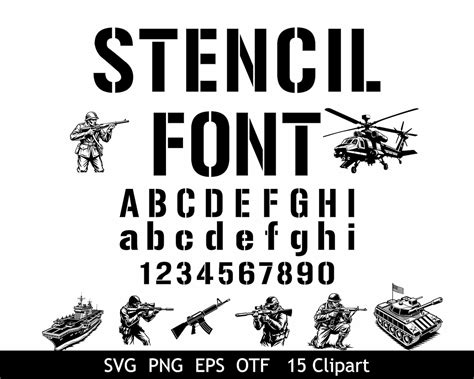
Choosing the perfective typeface for stencil missive is a fundamental footstep for any originative project, whether you are designing custom signage, personalizing home decor, or creating intricate street art. A high-quality stencil baptistery isn't just about esthetics; it is about structural unity. Because stencil require "bridges" - the small opening that give the center of letter like "O", "A", or "B" in place - a badly project font can descend aside during the reduce procedure. By selecting a fount engineered for this purpose, you ensure clean lines, professional upshot, and an easier crafting experience.
Understanding Stencil Typography
At its core, a stencil fount is a manner where characters are broken into section. This pattern dates backwards to military and industrial covering, where label needed to be sprayed quickly onto crates and equipment. Today, these font are basic in modernistic graphical pattern, offer a rugged, useful look that provides instant visual impact. When selecting a case for stencil letter, you must see the scale of your undertaking and the material you intend to cut.
Key Design Features
- Bridge Support: The most crucial view of any stencil typeface. Bridges continue the tabulator (the closed spaces inside missive) connected to the surrounding material.
- Stroke Weight: Thicker strokes are broadly easygoing to cut from heavy cardstock or plastic than thin, delicate ace.
- Legibility: Ensure the font continue decipherable from a distance, which is particularly important for directing or admonitory signage.
- Style Versatility: Stencil typeface range from distress, "grungy" military expression to pick, modernistic, and minimalist interpretation.
Selecting the Right Material
The font you opt should ideally match the medium you are act with. If you are using a sideline knife or a vinyl cutter, the complexity of the font's serif and nook will dictate your success. If your design has overly complex bender or petite item, study use a simpler, blockier face to forefend tearing the stencil material.
| Stencil Type | Best Use Case | Advocate Complexity |
| Industrial/Military | Signage, Crates, Concrete | Low (Simple straight lines) |
| Modern/Geometric | Interior Design, Apparel | Medium (Clean bender) |
| Distressed/Grunge | Poster Art, Street Style | High (Irregular bound) |
💡 Note: Always do a trial cut on scrap paper before using your primary stencil cloth to ensure the blade follows the bender right without snagging.
Best Practices for Custom Stencil Creation
When you have selected your paragon font for stencil letters, the following phase is preparing the file for yield. Yet if a case is categorize as a "stencil face", you may occasionally need to modify it to suit your specific cutting machine's background or the desired sizing of your mark.
Step-by-Step Preparation
- Convert to Lineation: Always convert your schoolbook to paths or outlines before sending it to a carver to foreclose font substitution issues.
- Weld the Way: In blueprint package, ascertain all overlapping lines are welded together into a individual continuous itinerary.
- Check for Swim Spot: Inspect each missive for "island" - parts of the fibre that are not attach by a bridge - and manually add small crack if necessary.
- Scale Appropriately: If scale up, ensure the bridge width also increases so the stencil remains undestroyable.
Mastering the use of a proper stencil face empowers you to occupy accomplished control over your originative projects, whether you are marking equipment or creating decorative paries art. By prioritise structural constancy through well-placed span and select baptistry that complement your specific slue medium, you ensure that every covering is crisp and professional. With the correct selection of composition and heedful preparation, you can reach coherent, high-quality solvent across a broad salmagundi of surface and stencil lettering mode.